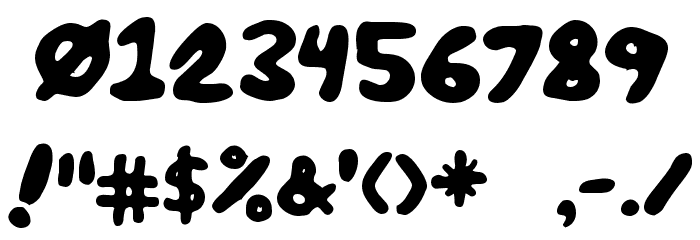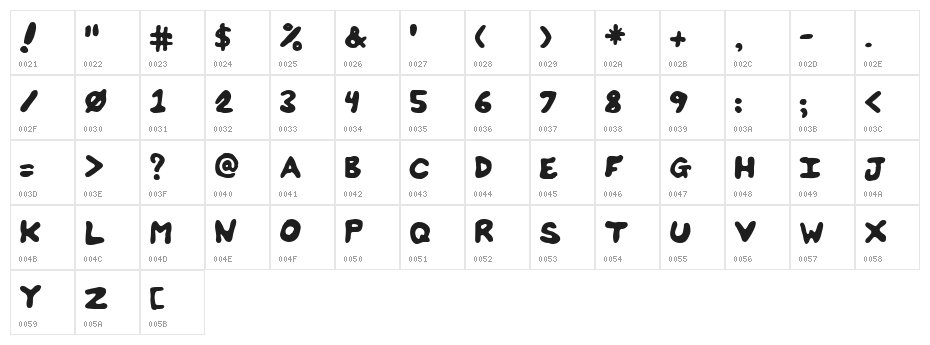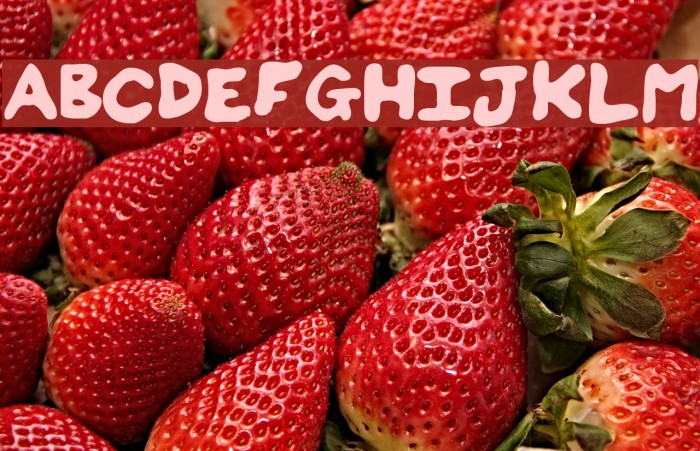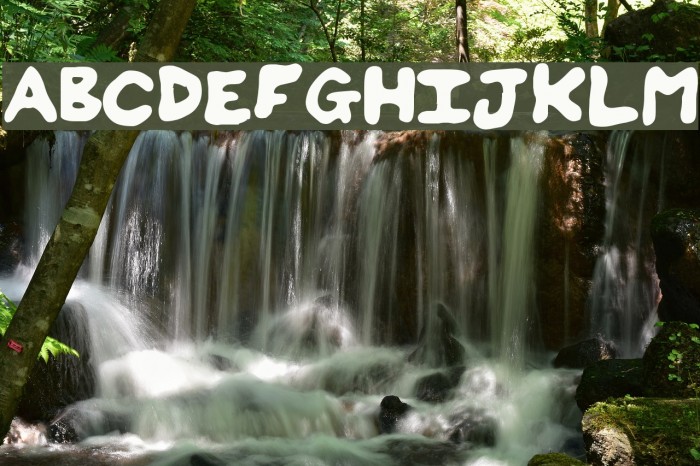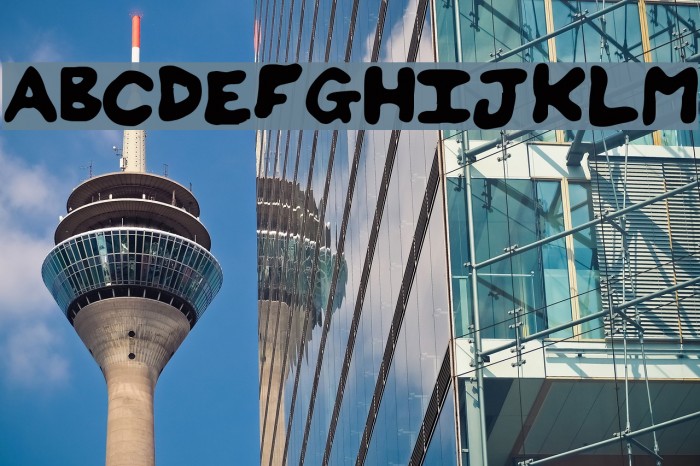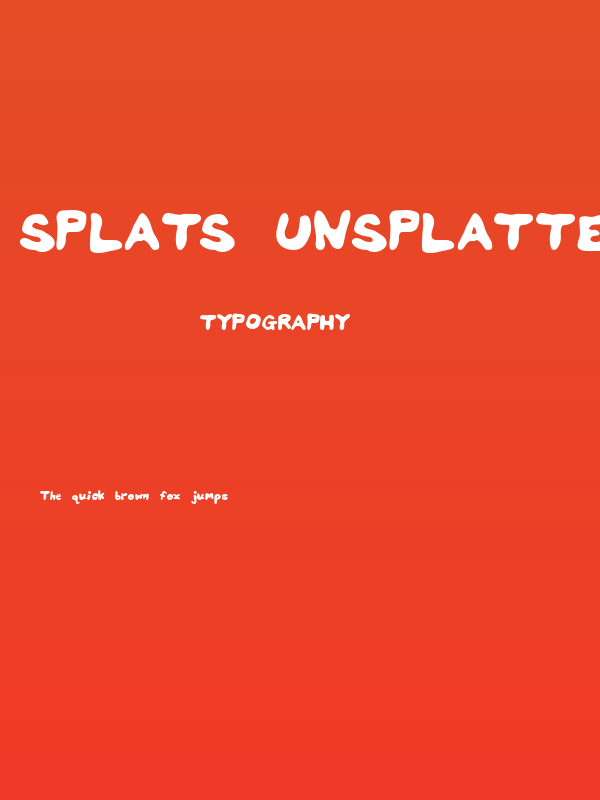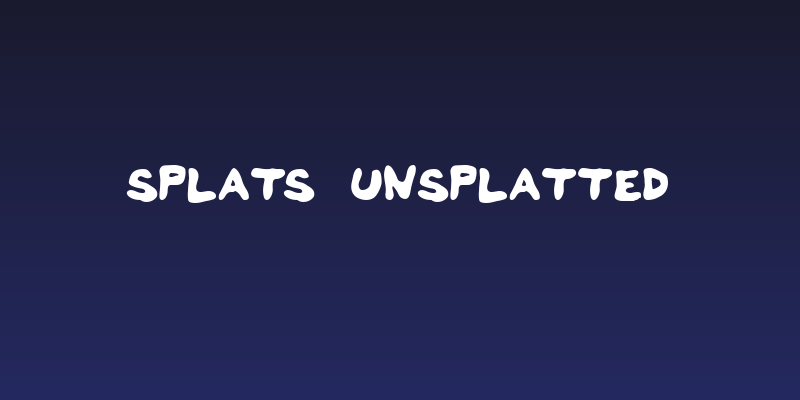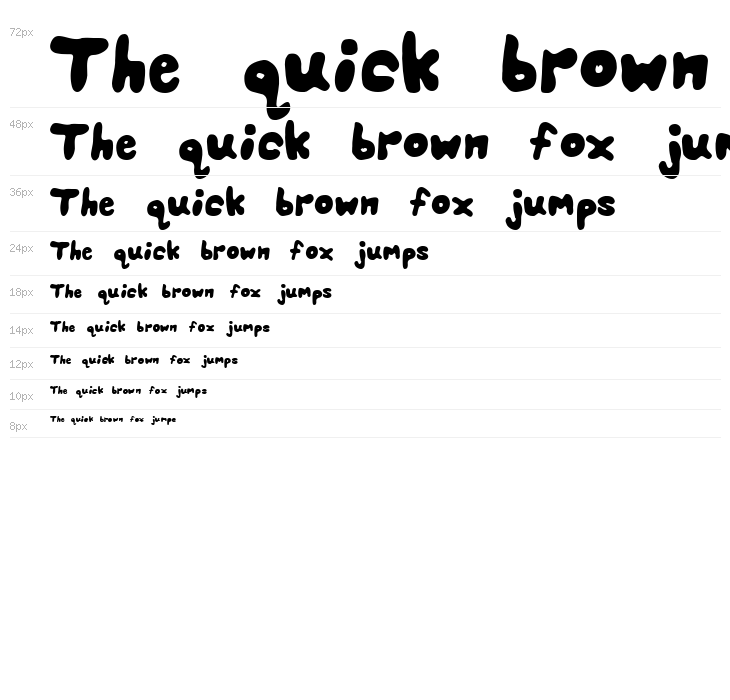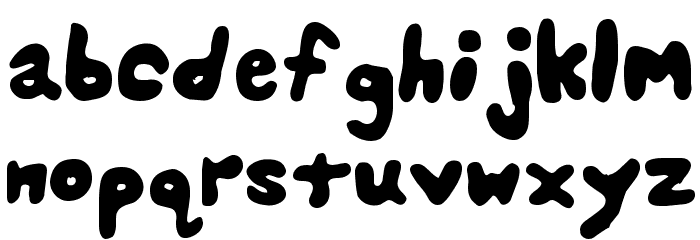
Splats Unsplatted Font
Splats Unsplatted Description
This playful and bold font features a unique, irregular design that mimics the appearance of ink splats. The characters are rounded and have a hand-drawn feel, giving them a whimsical and informal look. The uppercase and lowercase letters maintain a consistent style, with exaggerated curves and varying stroke thicknesses that add to the font's dynamic and energetic character. The numbers and special characters follow the same playful aesthetic, making the font suitable for creative and fun projects. Its distinctive style makes it stand out, ideal for capturing attention and conveying a sense of creativity and spontaneity.